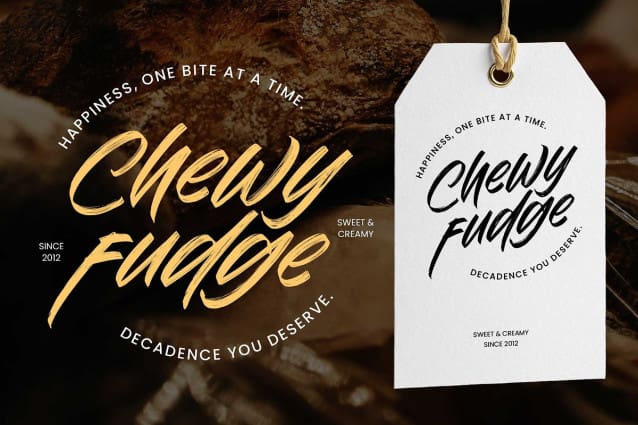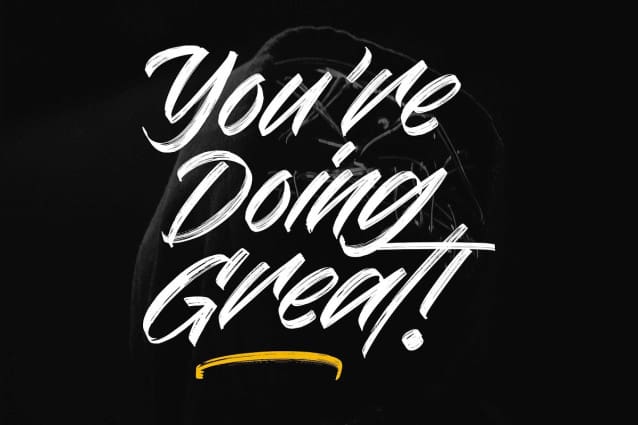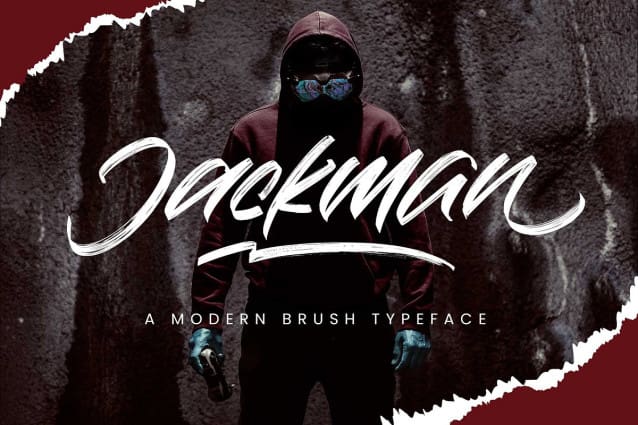
Jackman Brush Font
Jackman Brush Font is a freestyle brush font with natural, textured strokes that add a touch of joyfulness, making it truly stand out. It’s the perfect choice for those seeking a progressive and dynamic vibe for their designs.
Carefully crafted with a sense of energy while maintaining a clean texture, Jackman Brush strikes the perfect balance between boldness and elegance. Ideal for informal projects, particularly display and headline uses such as logotypes, stories, magazines, posters, events, apparel, motion graphics, and more!